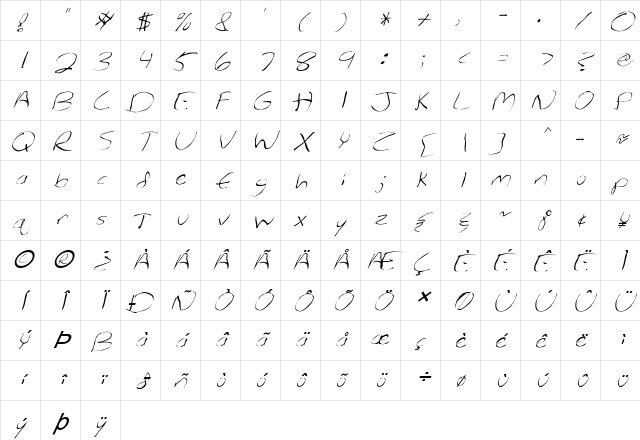
FZ WARPED 27 ITALIC is a composed and adaptable typeface that performs quietly and consistently across a wide range of design contexts. The slanted form adds forward momentum and visual energy.